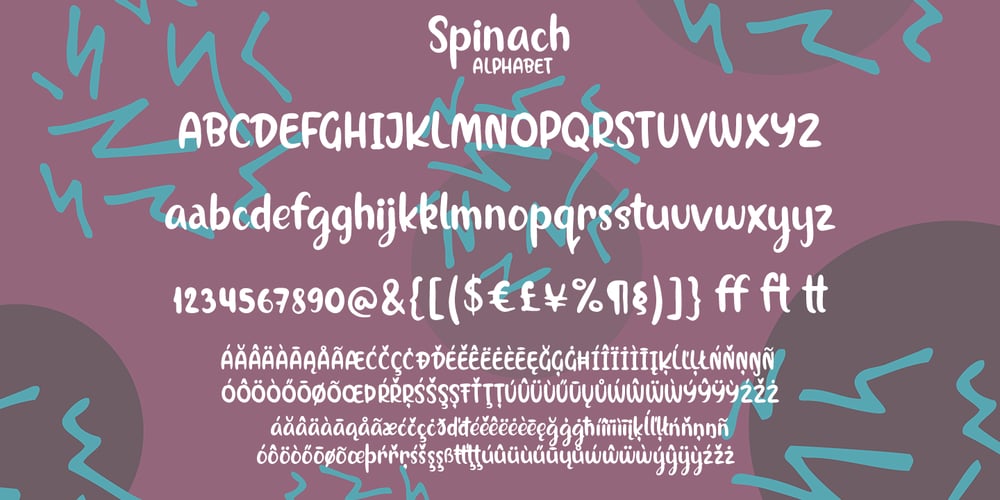
Spinach Font Family was designed by Pavel Larin and published by Larin Type Co. Spinach contains 1 styles and family package options. Spinach – a new fun display font. This is a fun font that is perfect for creating your project, it can be used to create a beautiful inscription for t-shirts, children’s books, branding, small business, book covers, stationery, marketing, blog, magazines and more. All characters of this font support PUA encoded.